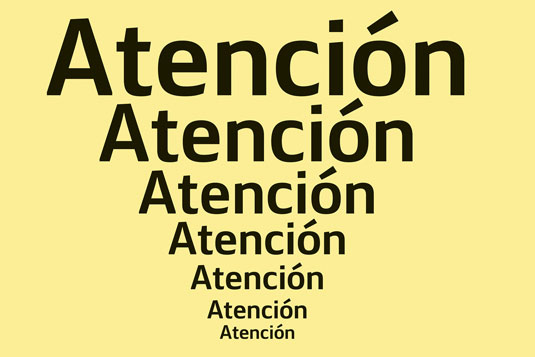
Font of the day: FS Silas
FS Silas from Fontsmith
FS Silas, 'The enigmatic type’, is the newest typeface family to be launched by Fontsmith, and has been created in both sans and slab serif forms. In a press release, the Fontsmith team stated: "The central aim behind FS Silas was to create a versatile typographic toolkit. One that would enable brands to communicate with different voices, but as part of a unified design language."